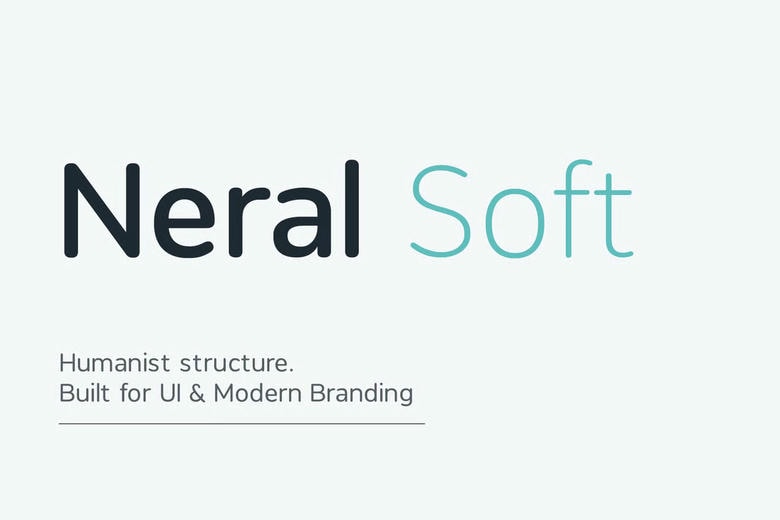
Neral Soft Font
Neral Soft is a fully humanist sans-serif typeface for modern interfaces and contemporary branding. Based on a clear, humanistic structure, Neral Soft is a combination of precision and warmth. Its softened terminals and open forms produce a friendly and professional tone that ensures excellent readability in user interface design, digital products, editorial layouts, and branding systems.
The family has 3 carefully designed weights, Light, Regular and Bold, providing flexibility in both subtle typography and bold visual hierarchy, With clean proportions and modern spacing, Neral Soft works reliably in terms of both text size and display: A versatile sans-serif system that feels approachable, functional and refined.
Neral Soft Sans Serif Font